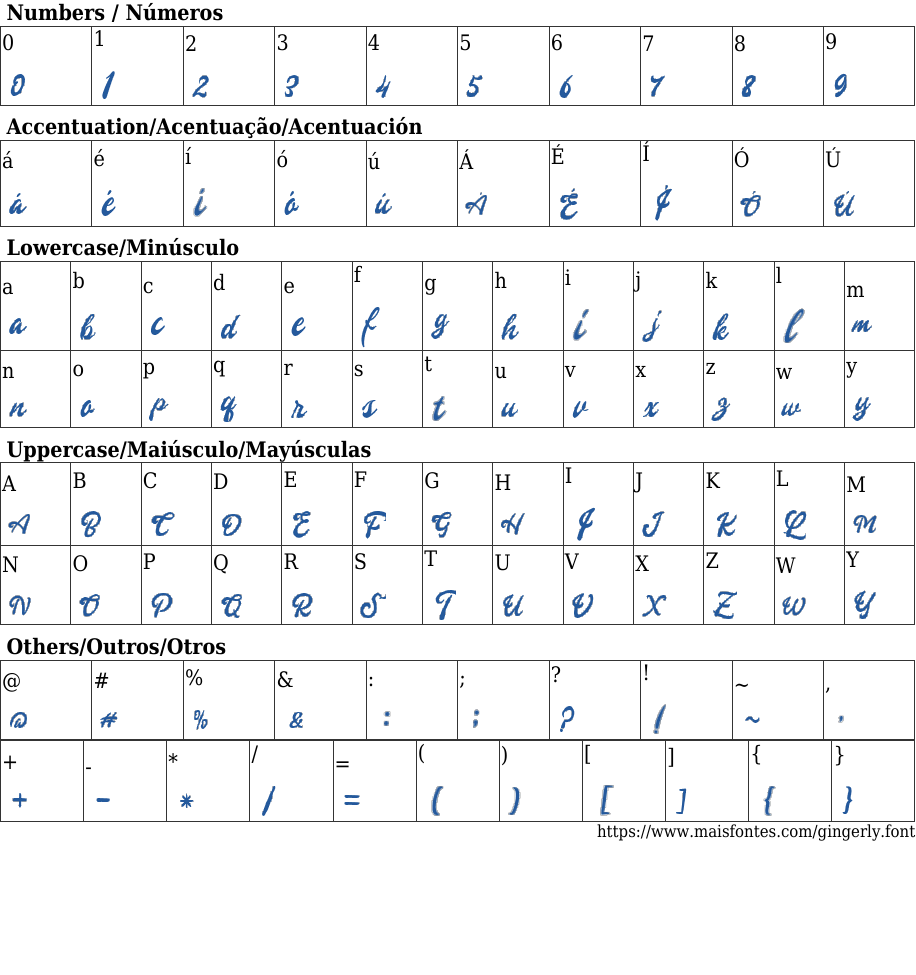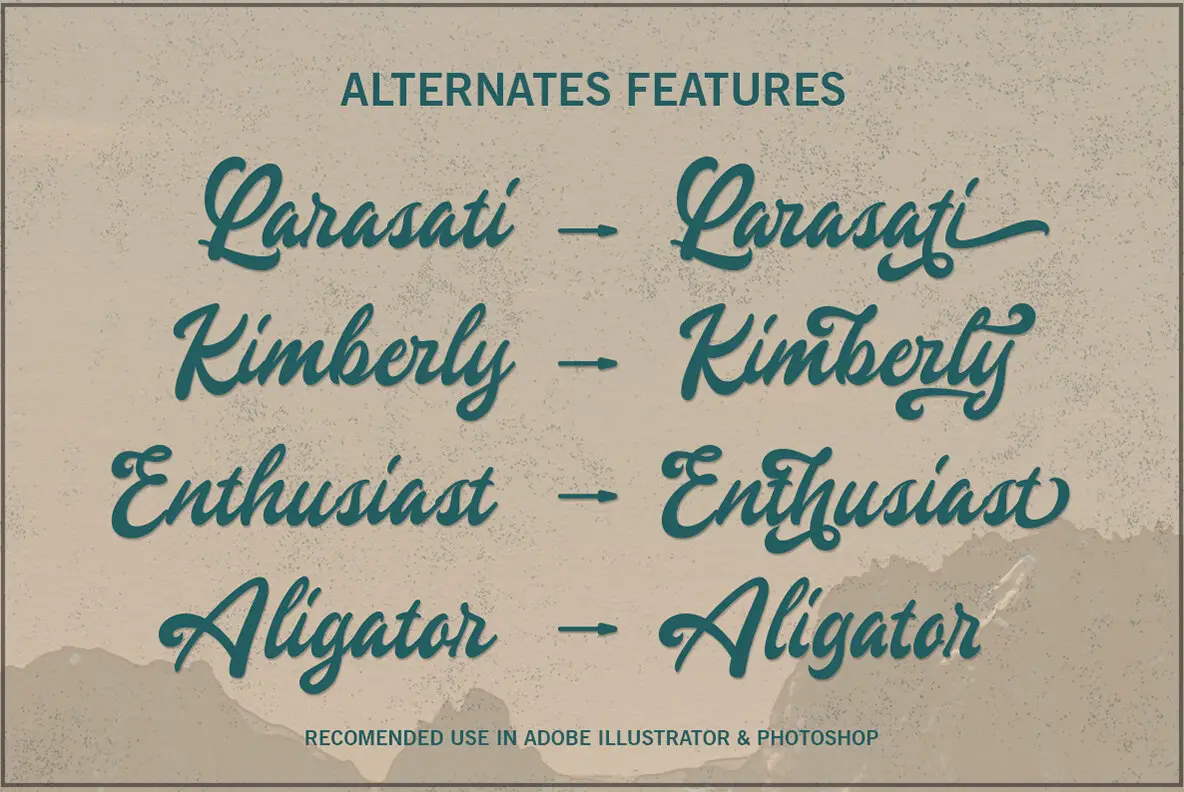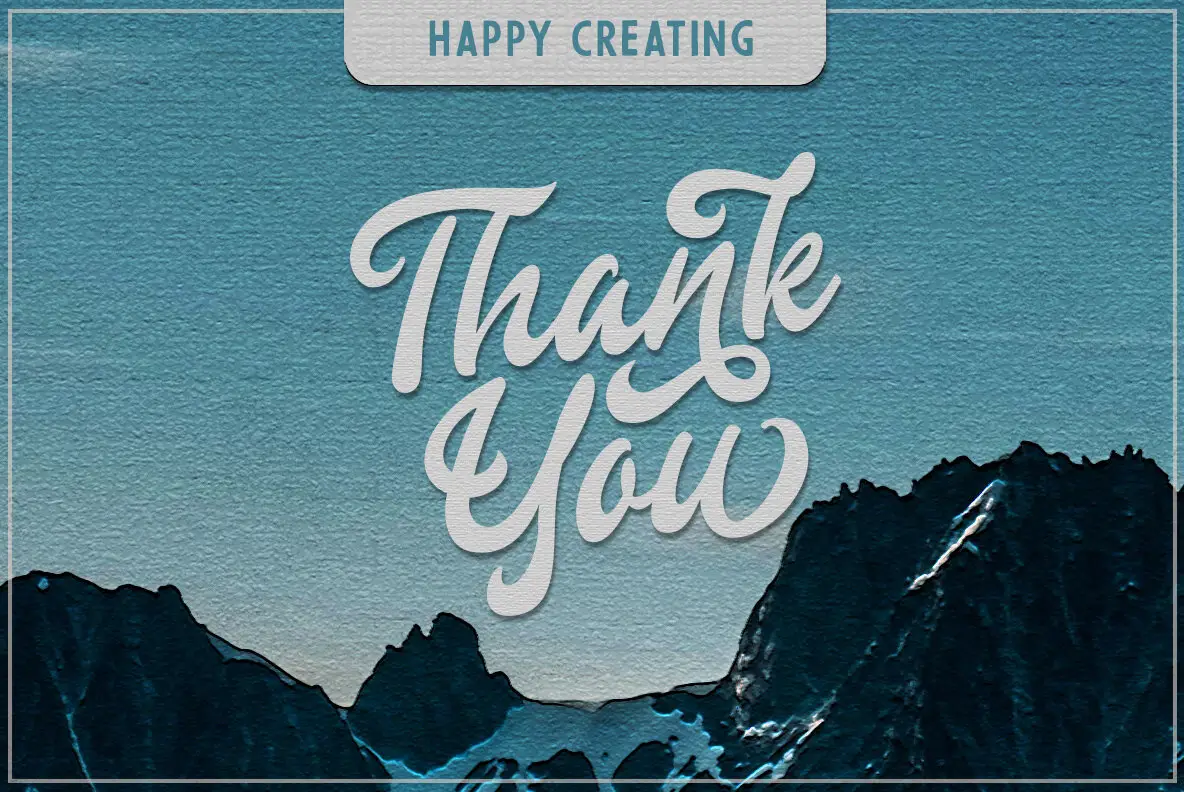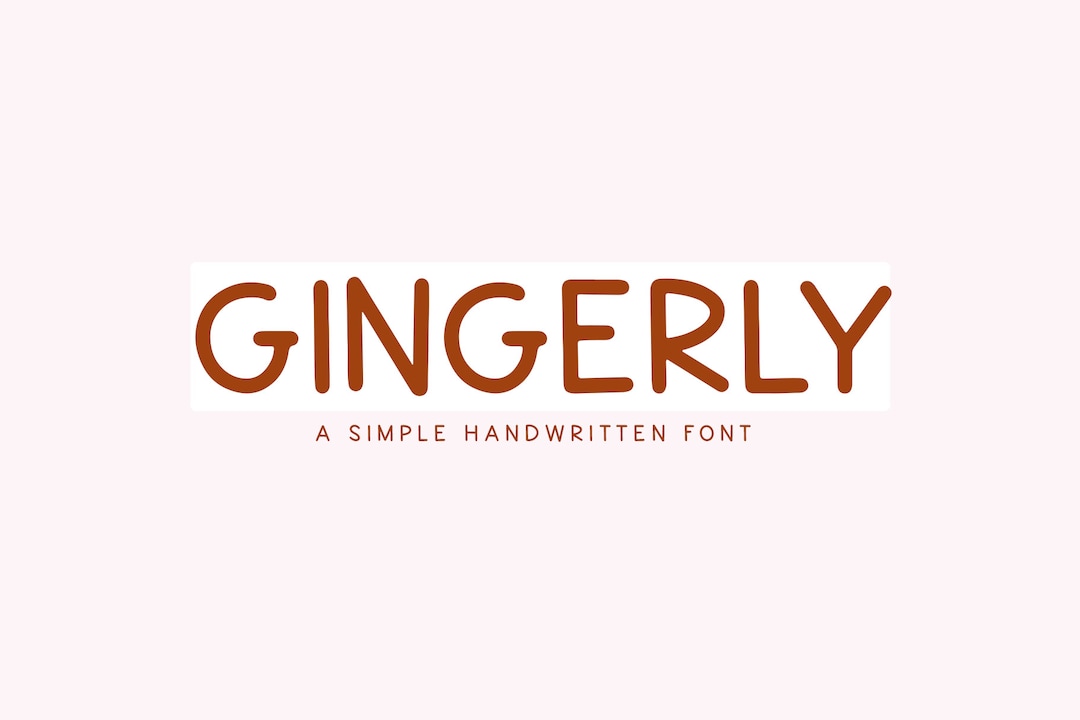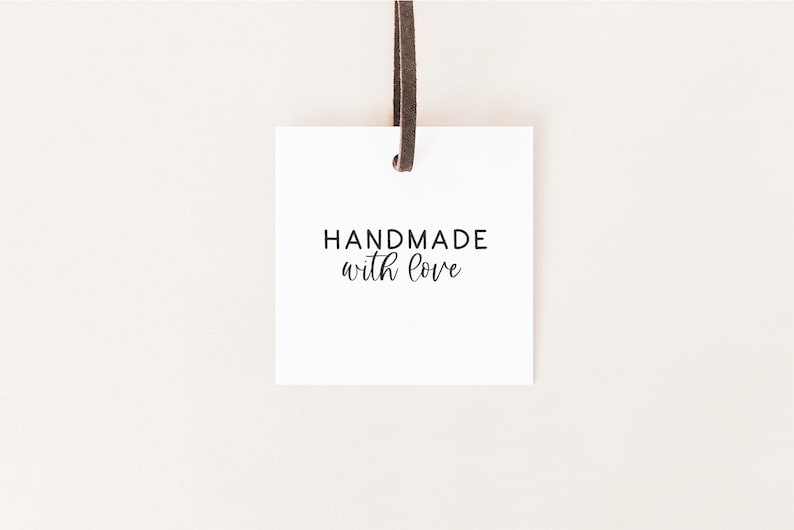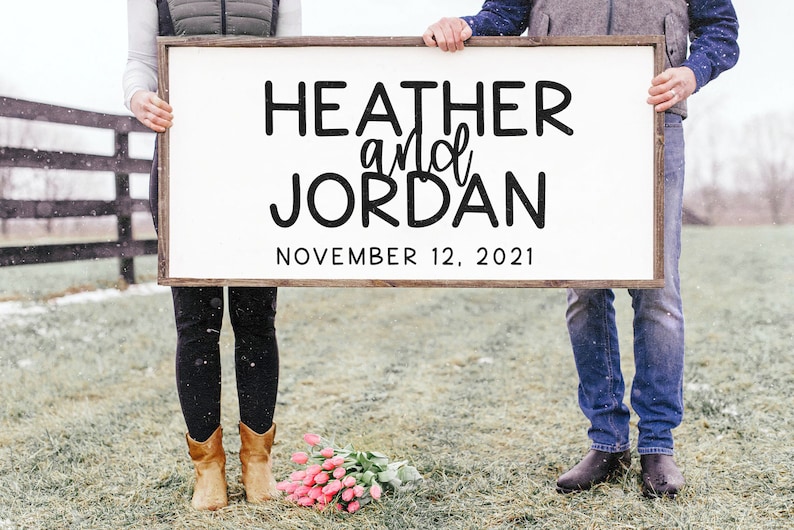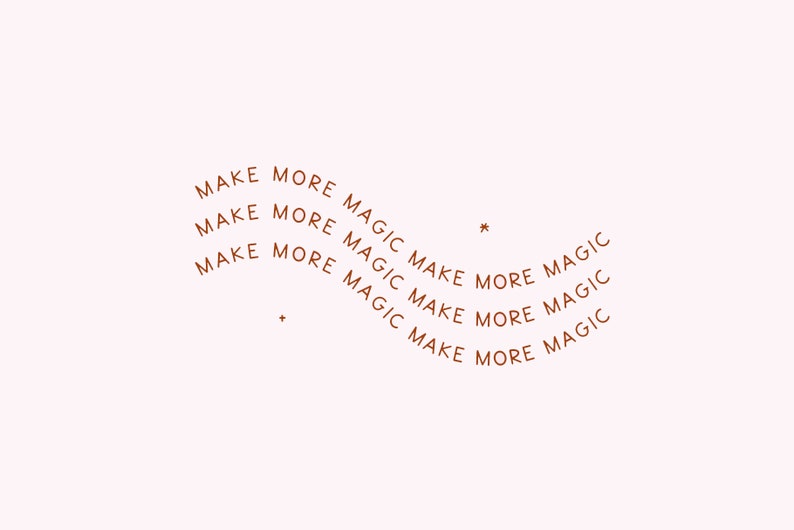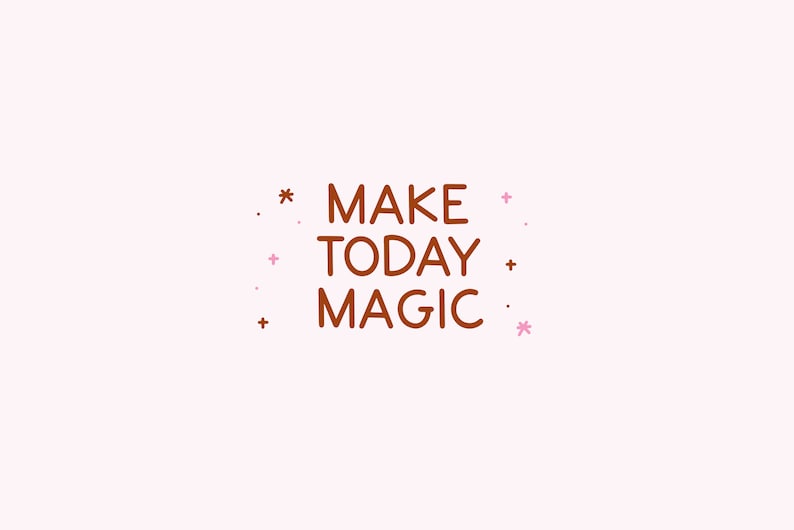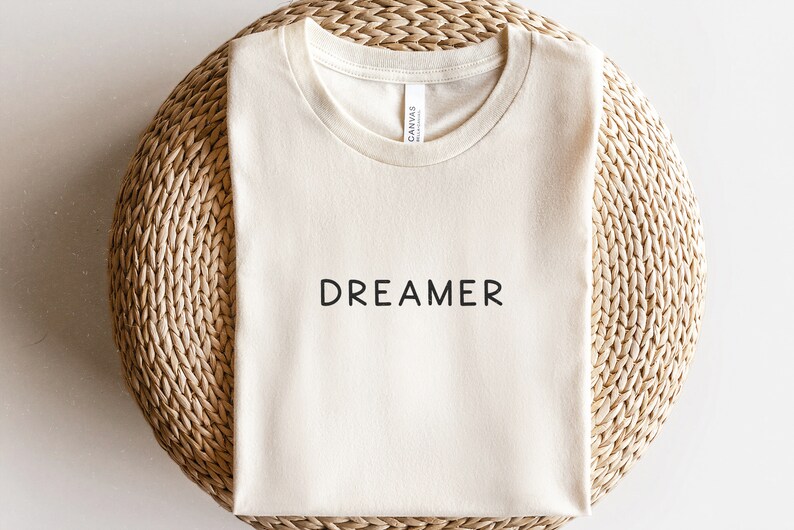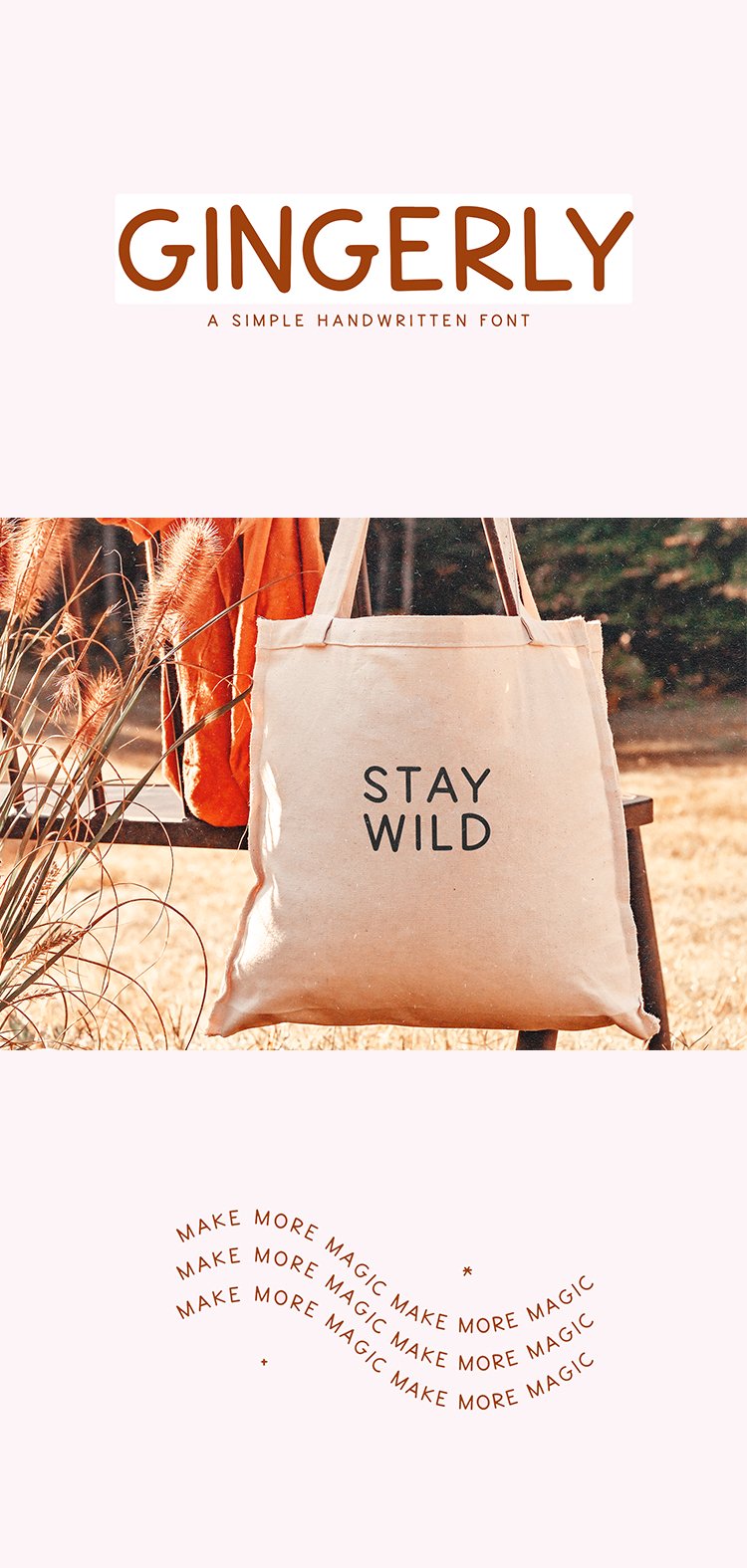
Gingerly Font . This font is free for personal use only (no commercial use. 14,433 downloads free for personal use. In script > old school. Free download of gingerly font. Gingerly feels equally charming and elegant. It looks beautiful on invitations, thank you cards, quotes, greeting. Gingerly is a casual font perfect for all of your craft projects! It looks beautiful on invitations, thank you cards, quotes, greeting. By using or installing the font you agree with our terms and condition. This font is perfect for farmhouse designs, shirts, svg designs, home. Click now to create a custom image with. Gingerly feels equally charming and elegant. A great choice for highlighting your design elements. Gingerly font by letterhend studio 7,921 downloads.
It looks beautiful on invitations, thank you cards, quotes, greeting. In script > old school. Gingerly is a casual font perfect for all of your craft projects! Gingerly feels equally charming and elegant. Free download of gingerly font. Gingerly font by letterhend studio 7,921 downloads. It looks beautiful on invitations, thank you cards, quotes, greeting. Click now to create a custom image with. This font is perfect for farmhouse designs, shirts, svg designs, home.
Gingerly Font Handwritten Font Sans Font Cricut Fonts Etsy
Gingerly Font 14,433 downloads free for personal use. Gingerly font by letterhend studio 7,921 downloads. In script > old school. It looks beautiful on invitations, thank you cards, quotes, greeting. 14,433 downloads free for personal use. This font is free for personal use only (no commercial use. It looks beautiful on invitations, thank you cards, quotes, greeting. A great choice for highlighting your design elements. This font is perfect for farmhouse designs, shirts, svg designs, home. Gingerly feels equally charming and elegant. Gingerly is a casual font perfect for all of your craft projects! Gingerly feels equally charming and elegant. Free download of gingerly font. By using or installing the font you agree with our terms and condition. Click now to create a custom image with.
Gingerly DEMO font Gingerly Font Gingerly is a casual font perfect for all of your craft projects! Click now to create a custom image with. A great choice for highlighting your design elements. This font is perfect for farmhouse designs, shirts, svg designs, home. In script > old school. 14,433 downloads free for personal use. Gingerly feels equally charming and elegant. This font is free. Gingerly Font.
Gingerly A Casual Handwritten Font Gingerly Font Click now to create a custom image with. Free download of gingerly font. In script > old school. It looks beautiful on invitations, thank you cards, quotes, greeting. Gingerly is a casual font perfect for all of your craft projects! By using or installing the font you agree with our terms and condition. It looks beautiful on invitations, thank you. Gingerly Font.
Gingerly Simple Handwritten Font Design Cuts Gingerly Font Gingerly feels equally charming and elegant. By using or installing the font you agree with our terms and condition. It looks beautiful on invitations, thank you cards, quotes, greeting. A great choice for highlighting your design elements. It looks beautiful on invitations, thank you cards, quotes, greeting. Gingerly is a casual font perfect for all of your craft projects! This. Gingerly Font.
Gingerly Bold Script Typeface, Fonts GraphicRiver Gingerly Font Gingerly is a casual font perfect for all of your craft projects! In script > old school. By using or installing the font you agree with our terms and condition. It looks beautiful on invitations, thank you cards, quotes, greeting. Gingerly feels equally charming and elegant. 14,433 downloads free for personal use. It looks beautiful on invitations, thank you cards,. Gingerly Font.
Gingerly Font Handwritten Font, Sans Font, Cricut Fonts, Fonts for Gingerly Font Gingerly is a casual font perfect for all of your craft projects! It looks beautiful on invitations, thank you cards, quotes, greeting. Gingerly font by letterhend studio 7,921 downloads. Gingerly feels equally charming and elegant. A great choice for highlighting your design elements. Click now to create a custom image with. By using or installing the font you agree with. Gingerly Font.
Gingerly Font Handwritten Font Sans Font Cricut Fonts Etsy Gingerly Font Gingerly feels equally charming and elegant. It looks beautiful on invitations, thank you cards, quotes, greeting. In script > old school. This font is perfect for farmhouse designs, shirts, svg designs, home. Free download of gingerly font. Click now to create a custom image with. By using or installing the font you agree with our terms and condition. It looks. Gingerly Font.
Gingerly Font Handwritten Font Sans Font Cricut Fonts Etsy Gingerly Font Gingerly is a casual font perfect for all of your craft projects! Gingerly feels equally charming and elegant. It looks beautiful on invitations, thank you cards, quotes, greeting. This font is free for personal use only (no commercial use. This font is perfect for farmhouse designs, shirts, svg designs, home. Free download of gingerly font. 14,433 downloads free for personal. Gingerly Font.
Gingerly Font Handwritten Font Sans Font Cricut Fonts Etsy Gingerly Font It looks beautiful on invitations, thank you cards, quotes, greeting. This font is free for personal use only (no commercial use. This font is perfect for farmhouse designs, shirts, svg designs, home. Gingerly is a casual font perfect for all of your craft projects! A great choice for highlighting your design elements. Click now to create a custom image with.. Gingerly Font.
Gingerly Font Fontspring Gingerly Font A great choice for highlighting your design elements. Gingerly is a casual font perfect for all of your craft projects! It looks beautiful on invitations, thank you cards, quotes, greeting. Gingerly feels equally charming and elegant. By using or installing the font you agree with our terms and condition. 14,433 downloads free for personal use. Click now to create a. Gingerly Font.